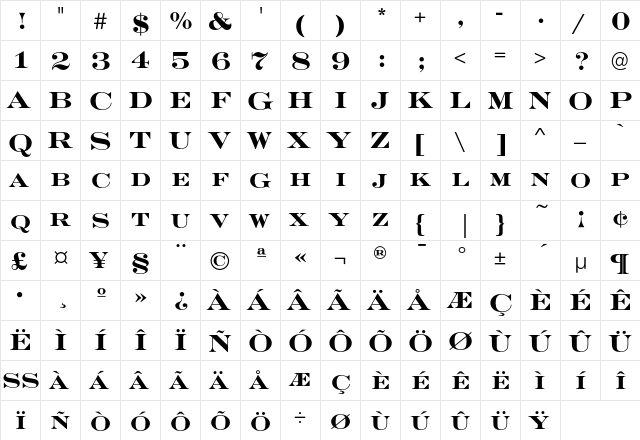
EngraversEF Bold
Design Context for EngraversEF Typeface
EngraversEF is a composed and adaptable typeface that performs quietly and consistently across a wide range of design contexts. Its bold stroke weight gives it real presence on the page.